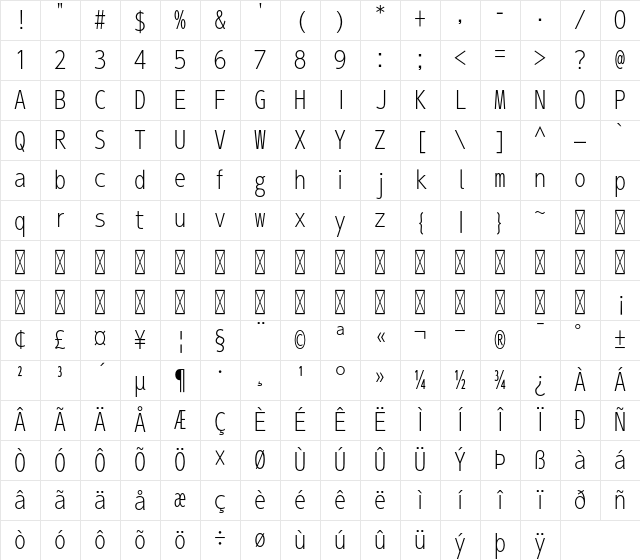
A-OTF UD Shin Go Con50 Pr6N EL
Style: EL
A-OTF UD Shin Go Con50 Pr6N Family
Design Context for A-OTF UD Shin Go Con50 Pr6N
A-OTF UD Shin Go Con50 Pr6N is a composed and adaptable typeface that performs quietly and consistently across a wide range of design contexts.